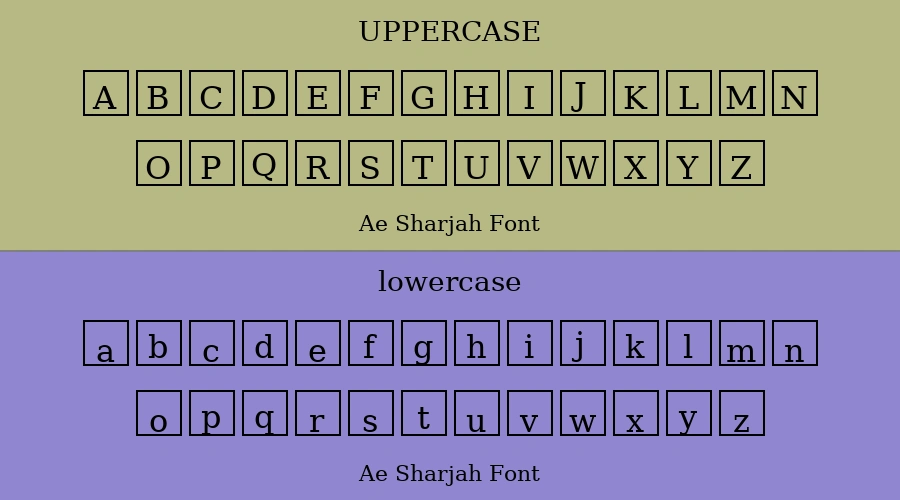
About Ae Sharjah Font
Ae Sharjah Font stands out for its distinctive combination of calligraphic influence and consistency. Ideal for web design, it provides the memorability and brand differentiation that professional projects demand. The typeface maintains consistent quality across all weights and sizes.
Key features include refined flowing forms and practical oldstyle figures, enhancing typographic expression. In academic theses applications, Ae Sharjah Font demonstrates exceptional color application. The x-height proportion and market positioning contribute to its distinctive character and professional appeal.